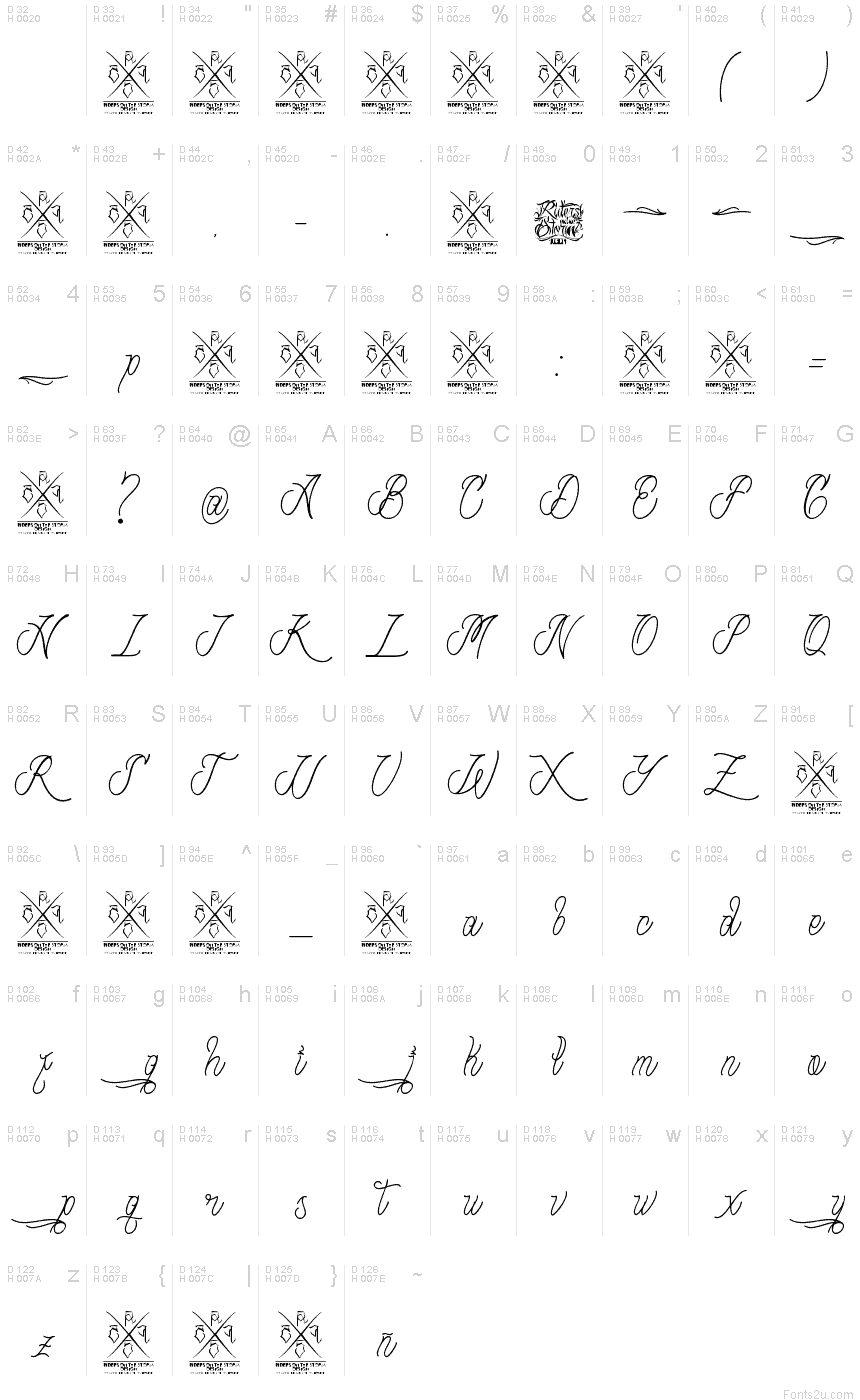
Strange Days is a free calligraphic script with a theatrical, highly flourished silhouette. Its slender strokes sweep through tall loops, deep curves, and exaggerated capitals, giving the lettering the look of an elaborate signature, yet the line remains light and open.
It can turn a title into part of the decoration. The looping forms suit fashion branding, fragrance packaging, and album artwork, especially when a project calls for elegance with a slightly eccentric edge. Those repeated swashes can echo ribbon, trailing thread, or fine line illustration, which makes them especially apt for romantic wedding invitations and expressive contemporary dance posters.